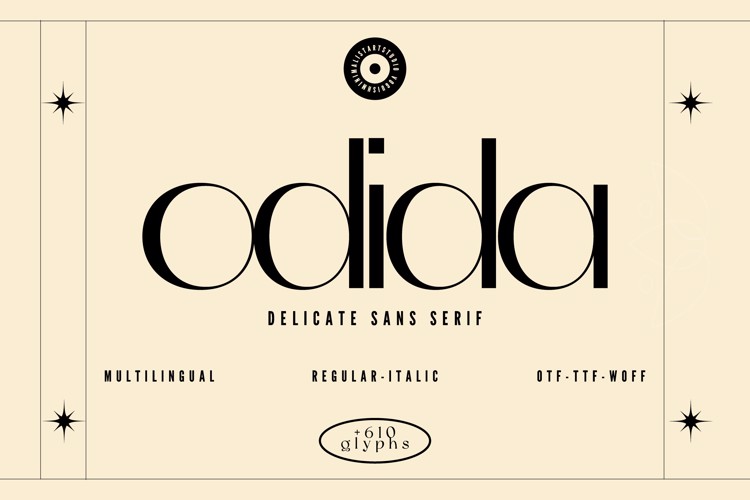
odida Font
🎨 Font Name: odida by Minimalist Art Studio
🎨 Font Description: Odida is a delicate sans serif with tall, modern letterforms—perfect for minimalist branding and elegant editorial design.